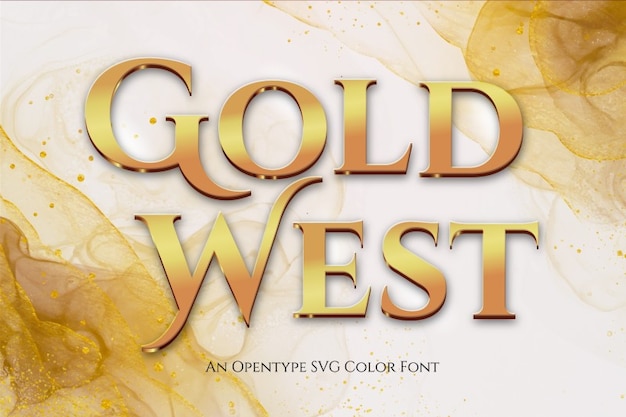
Gold West Font
Welcome to the world of sophistication and elegance with Gold West, the luxurious OpenType color font that will add a touch of class to any design. Gold West is a font that embodies the essence of luxury with its gold-colored and ornate letters. Its unique style is perfect for adding a touch of glamour and prestige to your designs, such as high-end product packaging, invitations, and branding. Download it now!